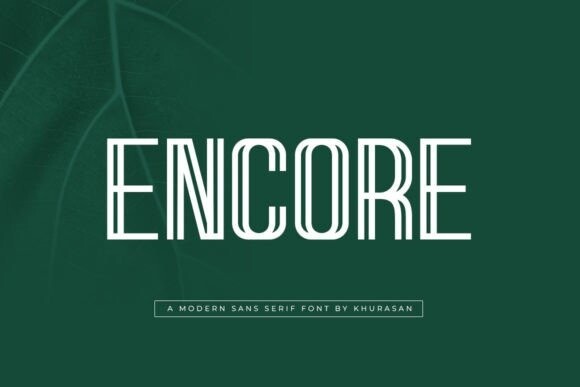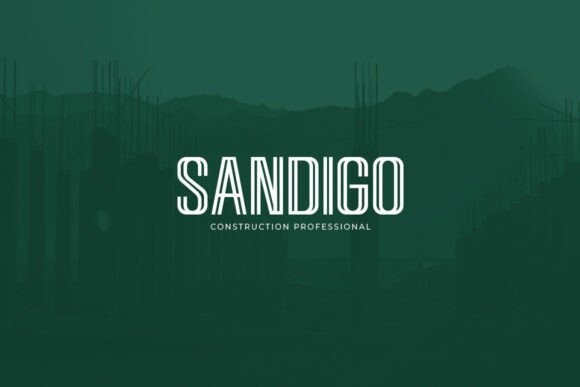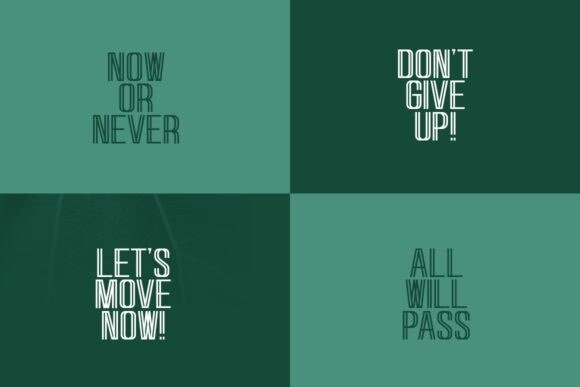
Encore Font
Encore Font is a modern display font with a unique, stylish appearance. It can easily be matched to an incredibly large set of projects, so add it to your creative ideas and notice how it makes them stand out!